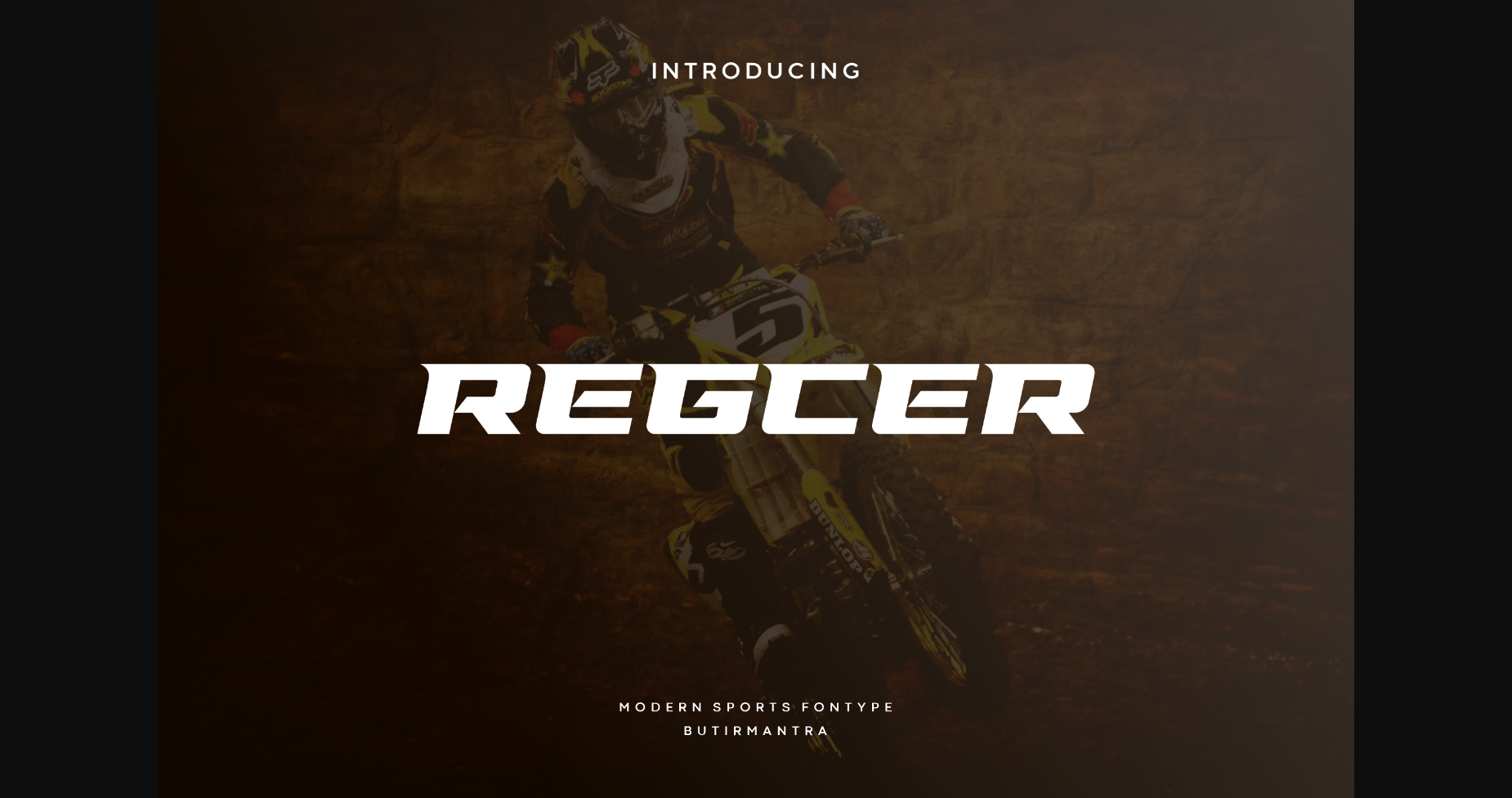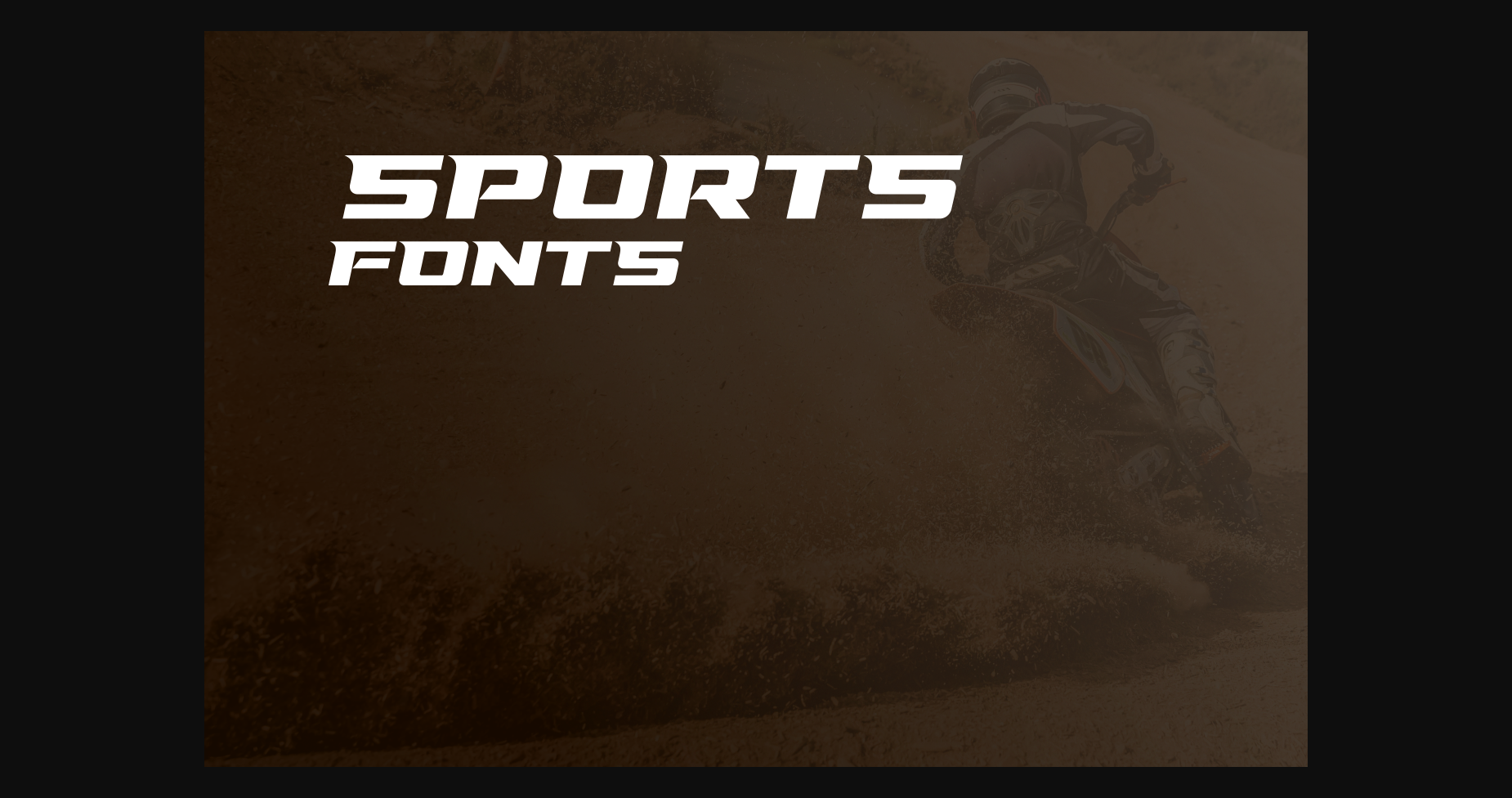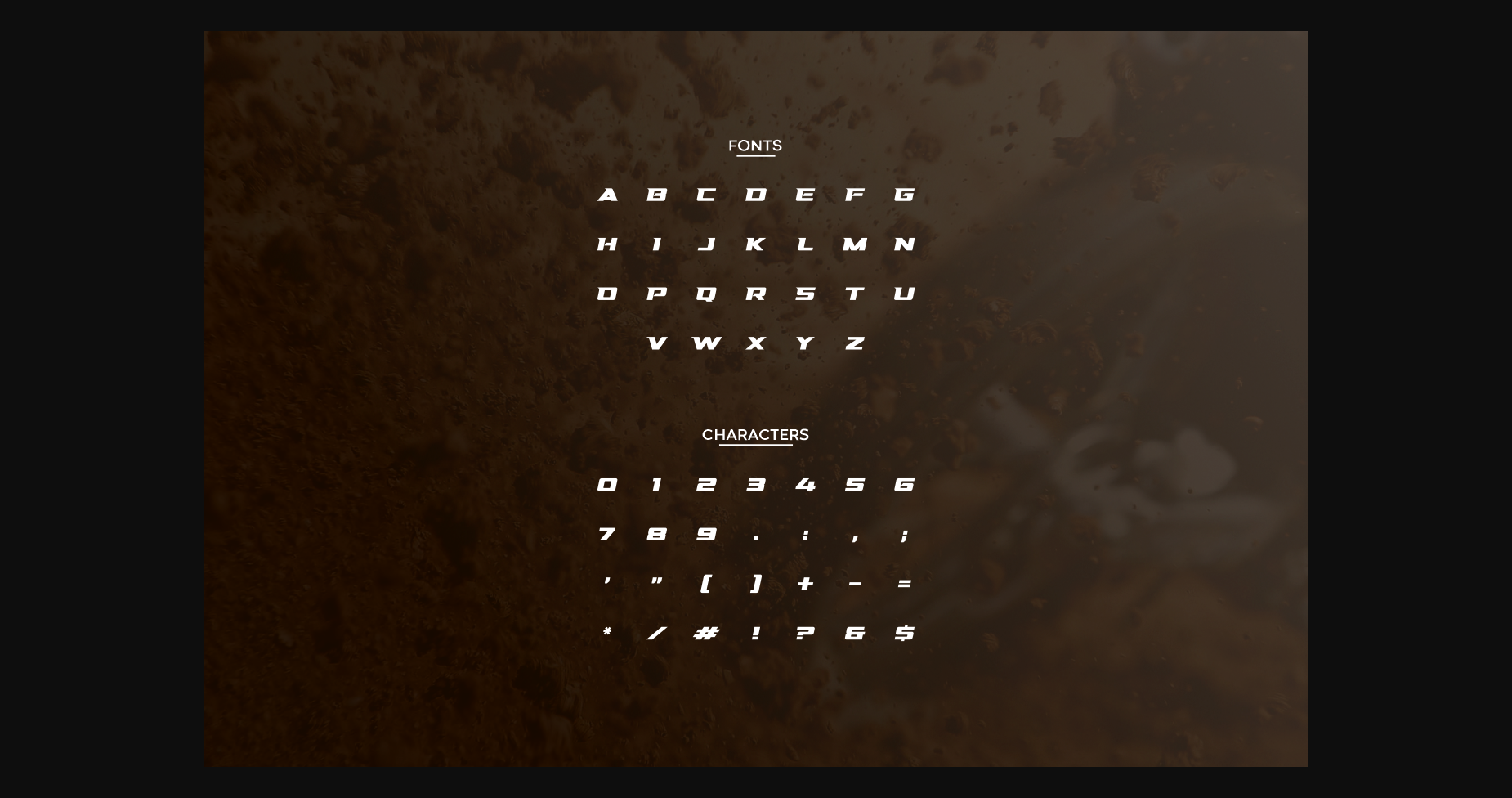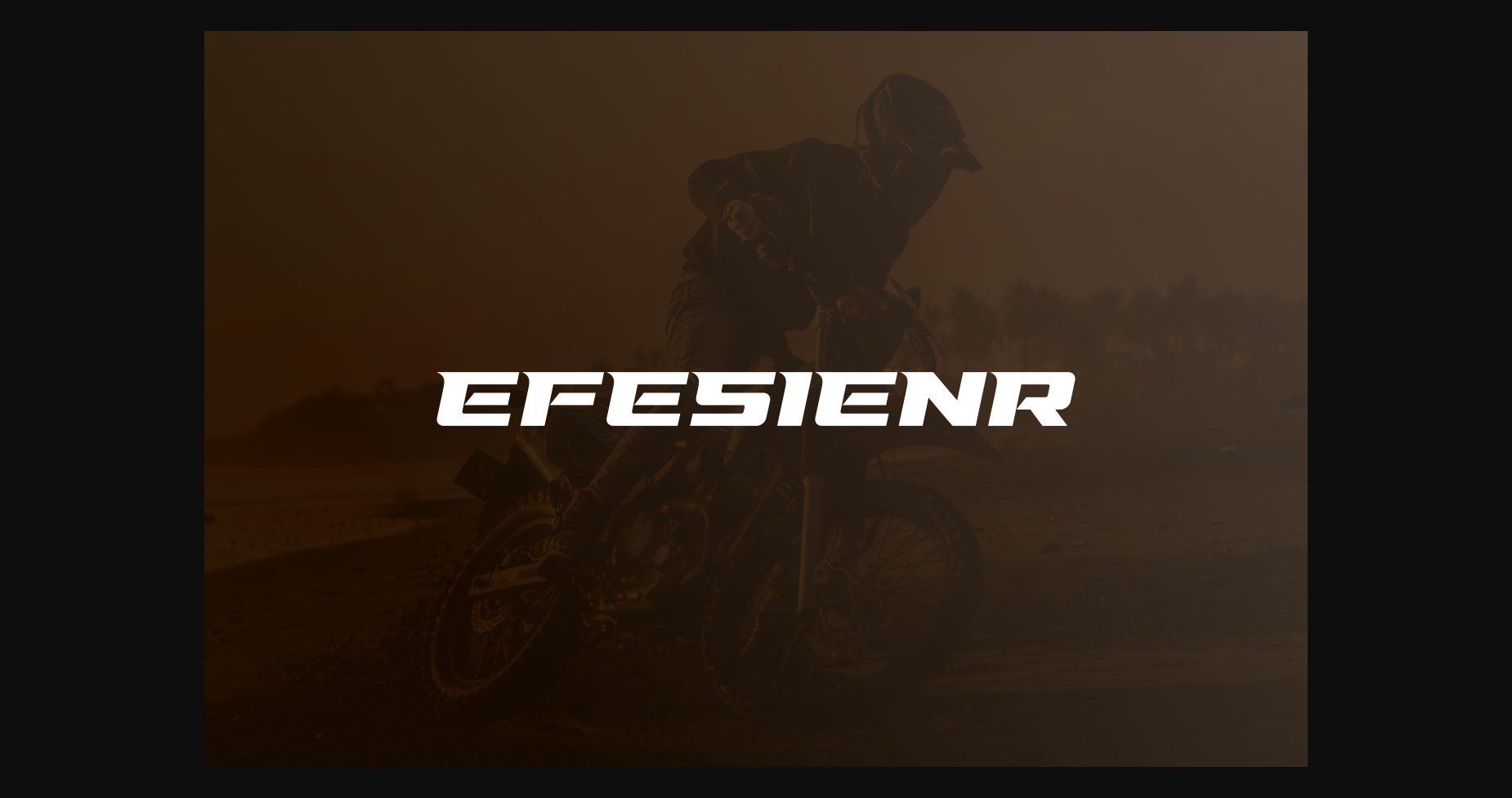
HomeSans Serif FontsRegcer Font Sans Serif Fonts Regcer Font FacebookTwitterPinterestWhatsApp 1 of 6 ... Regcer Font Poster 2... Regcer Font Poster 3... Regcer Font Poster 4... Regcer Font Poster 5... Regcer Font Poster 6... About Regcer Font Regcer is a cool sports display font with wide italics, modern cutouts, and a dynamic slant. Ideal for fast car racing sports titles, running matches, cycling, automotive game logos and monograms or other modern dynamic text. DOWNLOAD NOW People also explored Justnithe Font Kansha Font Sunday Vintage Font Bounties Font Rabbitie Font Blantick Font Righteous Font Putrey Font Queen Renata Font 259 0 TagsRegcerRegcer Font Previous articleGroprod FontNext articleHopbred Font LEAVE A REPLY Cancel reply Comment: Please enter your comment! Name:* Please enter your name here Email:* You have entered an incorrect email address! Please enter your email address here Website: Save my name, email, and website in this browser for the next time I comment. Personal Use Free Market Love Personal Use Free Read more about this font Hallo Betty Personal Use Free Read more about this font Equalizer Script Personal Use Free Read more about this font Playground Clip Art Personal Use Free Read more about this font BLOG Free vs Paid Fonts: Why Investing in Premium Fonts Is Worth It Free vs Paid Fonts: Why Premium Fonts Are Worth It in 2025 The debate of free vs paid fonts continues in the design world. While... Using Fonts in Digital Marketing: Tips to Strengthen Your Brand Identity Best Fonts for YouTube Videos: Make Your Thumbnails Stand Out Top 7 Google Fonts Alternatives for Faster and Privacy-Friendly Web Design (2025)